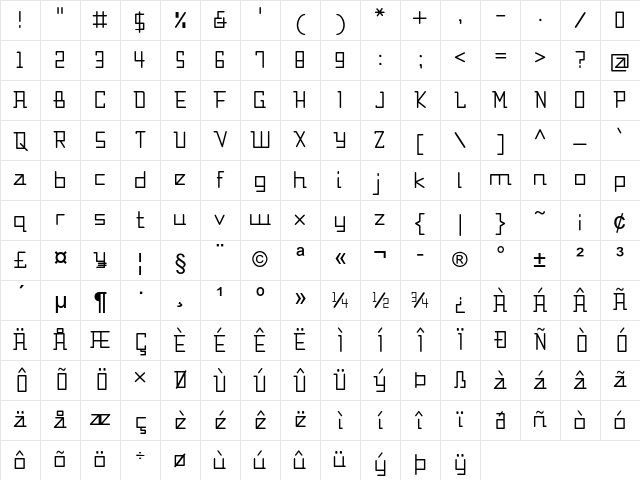
Skellar Regular
Skellar Family
Skellar Regular
Design Context for Skellar
Skellar is a composed and adaptable typeface that performs quietly and consistently across a wide range of design contexts.